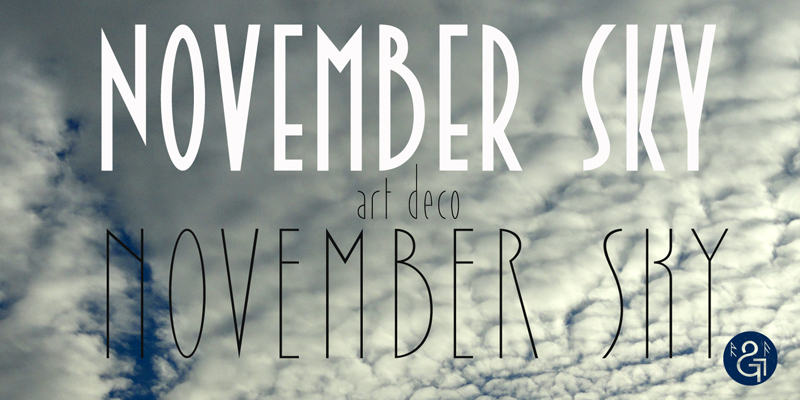
Font name: | November Sky |
NOVEMBER SKY is an art deco font. This family only have regular and bold version. This font is only DEMO. Commercial use requires donation. or For full version (with open type features like stylistic alternates and ornaments) and my other fonts visit http://www.myfonts.com/foundry/MyHandwritings/ or contact me at myhandwritings@gmail.com Also feel free to drop me a line in case of questions or feedback.Mostly in case of any problems with the characters, pairs, installation etc. That would also help me in my design work, and would be greatly appreciated! Roland http://www.rolandhuse.com Enjoy \m/ |